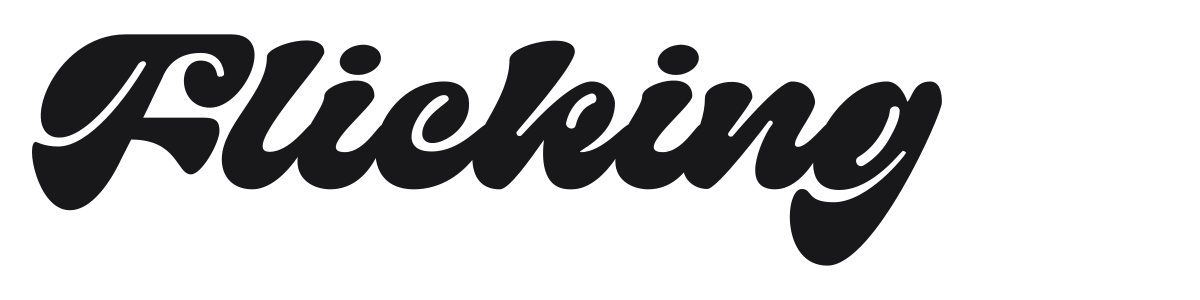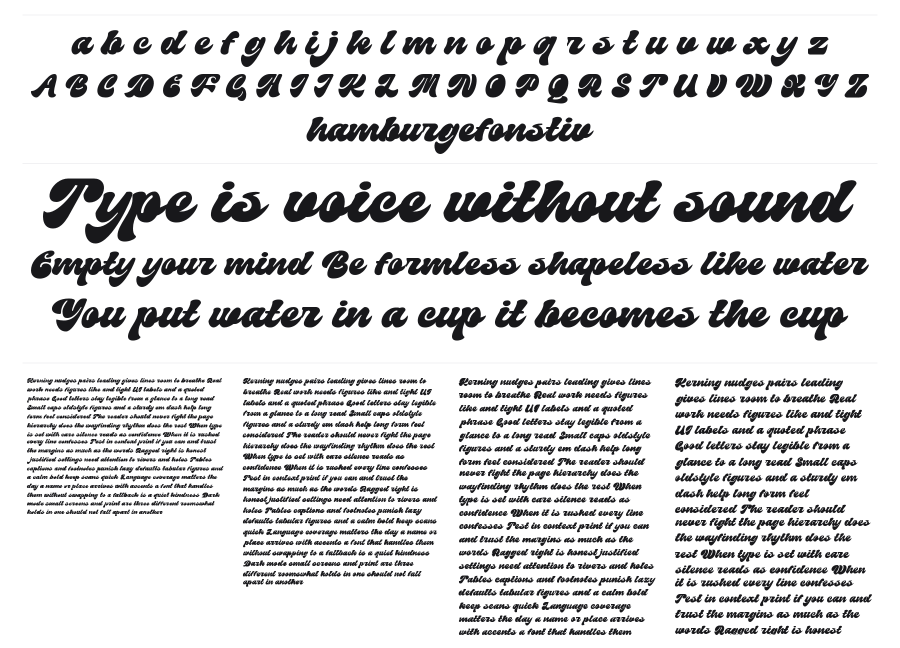
Flicking
Flicking is a bold connected brush script with thick, fluid strokes and a strong italic slant. It draws from mid-century American hand-lettering traditions, with a casual confidence that sits comfortably between retro diner signs and modern streetwear graphics. The continuous connecting flow gives it plenty of rhythm at large sizes.